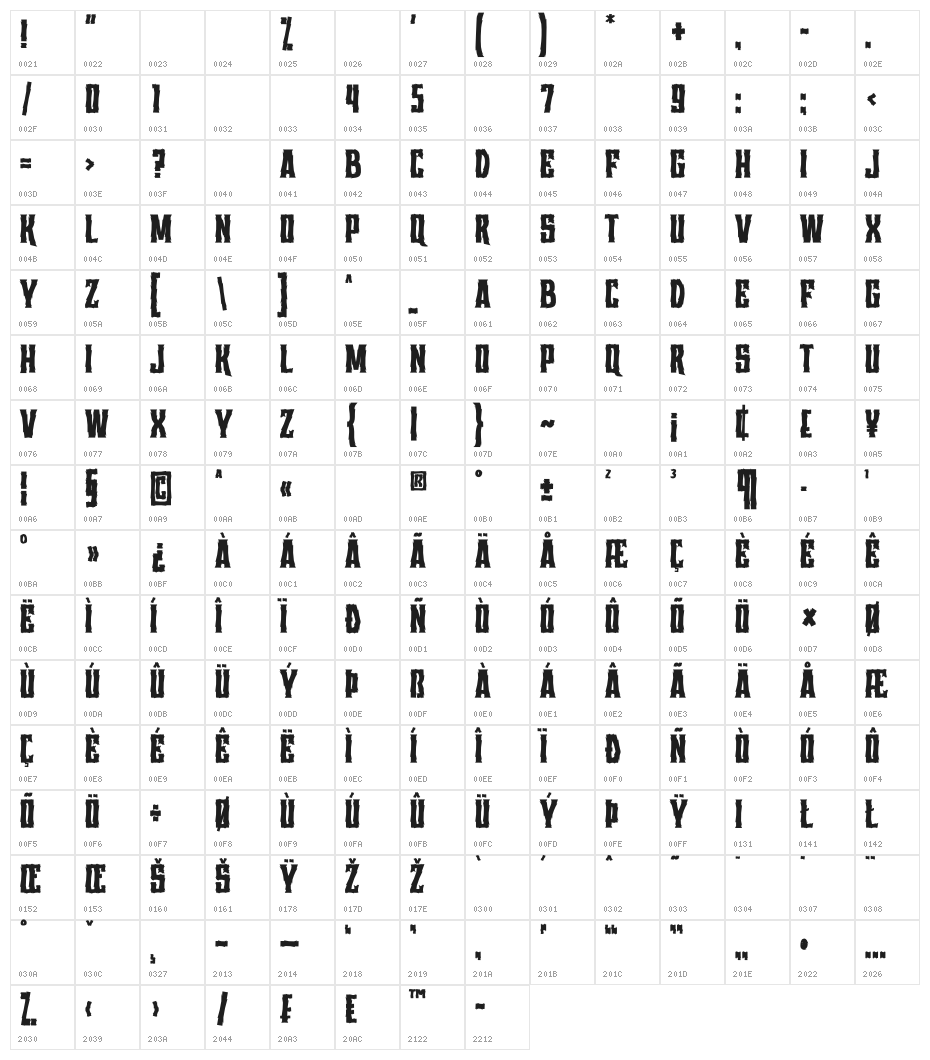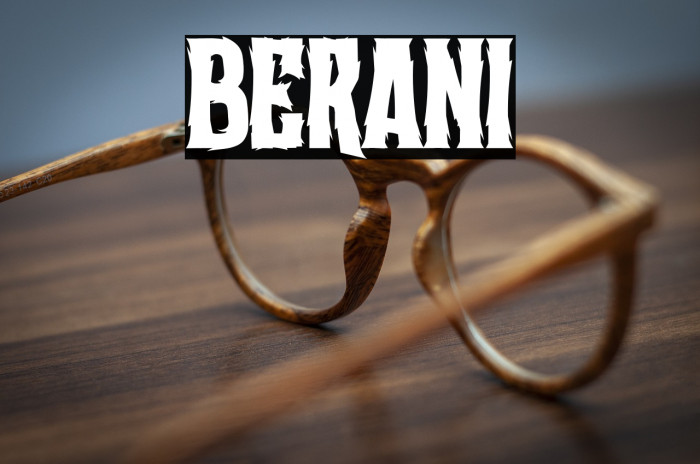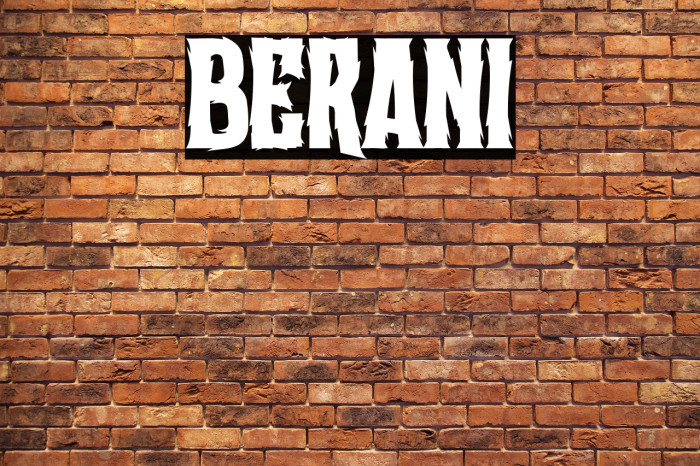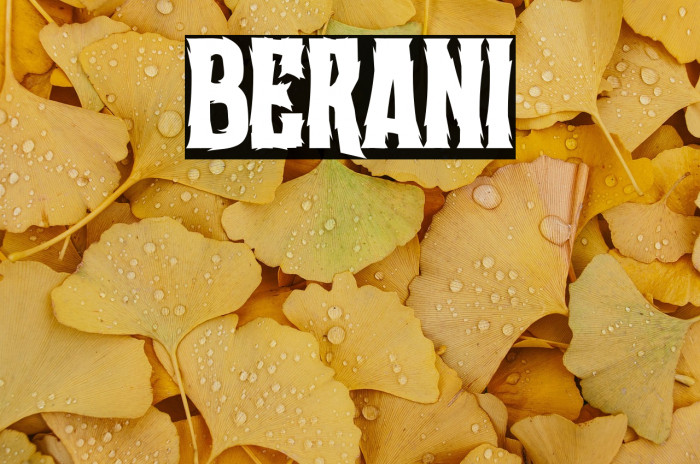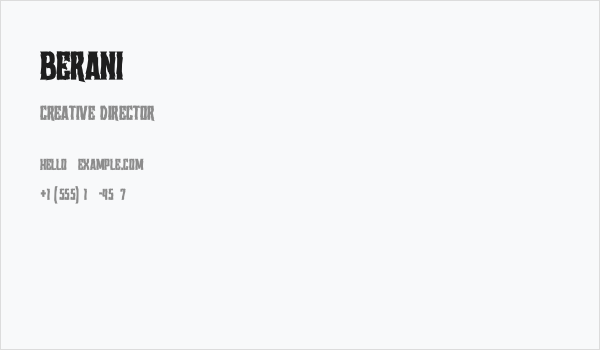
Berani Font
Berani Description
This font features a bold and aggressive style, characterized by its jagged and rough edges that give it a dynamic and energetic appearance. The letters are heavily stylized, with sharp angles and irregular shapes that create a sense of movement and intensity. This design is reminiscent of graffiti or street art, making it ideal for projects that require a strong visual impact. The uppercase and lowercase letters maintain a consistent style, while the numbers and special characters follow the same edgy theme, ensuring a cohesive look across all text elements.
| Overall Style | Modern, Edgy |
| Proposed Projects | Perfect for music album covers, event posters, streetwear branding, and any project needing a bold, edgy aesthetic. |